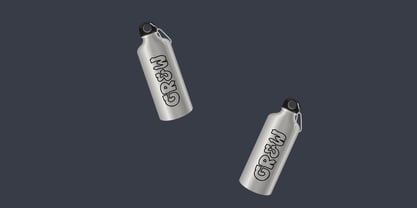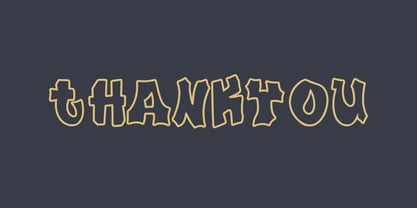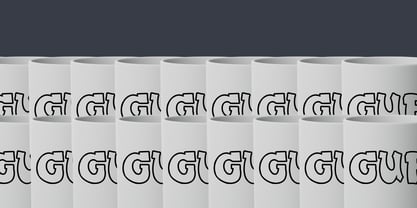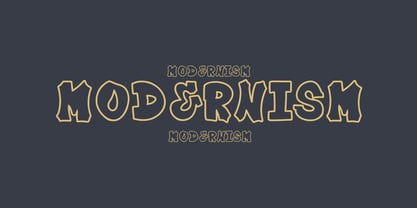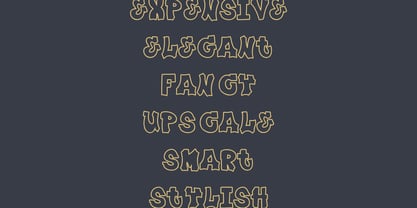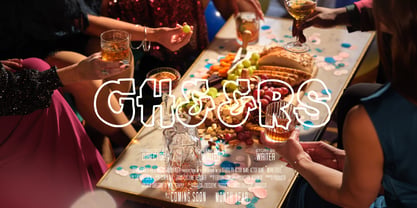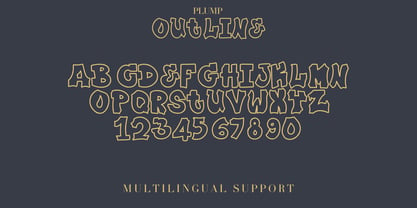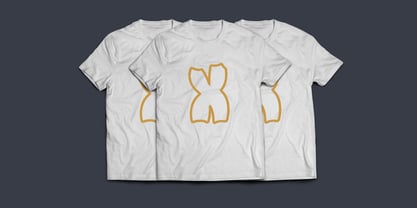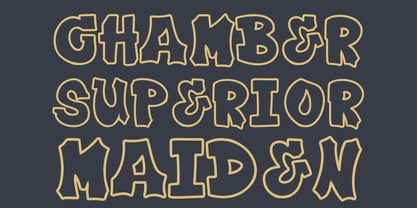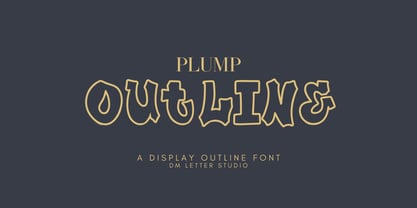
Plump Outline
by DM Studio
The Plump Outline Font Family was designed by Dimas Prasetyo and published by DM Studio. Plump Outline contains 1 styles.
Meet Plump Outline, the Display Font Plump Outline is a bold outline display font with a chunky, friendly shape that makes headlines pop without feeling heavy. It brings that “puffy” look while keeping the inside open, so your text stays clear and playful on any background. Because the outlines are clean and balanced, small labels stay readable and big titles look extra eye-catching. Use it for logos, stickers, packaging, kids designs, posters, social posts, and seasonal promos. As a result, your layouts look fun and high-impact with minimal effort. Why Plump Outline sells First, it installs fast and works smoothly in Canva, Photoshop, and Illustrator. Next, the open outline style prints cleanly and looks great for layering, shadows, and color fills. Then designs build faster because you can create depth using simple effects like stroke, offset, or drop shadow. Moreover, Plump Outline pairs perfectly with a solid chunky font, a clean sans, or a simple serif, so your typography stays balanced. Therefore, you can create cohesive collections and promo sets quickly. Fast layouts with the Plump Outline font Start with a short headline in Plump Outline and keep it bold. After that, add a solid fill behind it using a shape, a duplicate layer, or an offset effect. Because outlines love contrast, use strong background colors or simple gradients to make the letters shine. In addition, try stacking one to three words to create a strong badge-style composition. Finally, save palette pairs like black & cream, navy & white, cherry & ivory, or charcoal & neon to repeat across your product line. Creative uses and quick wins Sticker titles, label headers, and packaging fronts Kids party invites, classroom posters, and playful logos Social post headlines, reels covers, and YouTube thumbnails Seasonal promos, sale banners, and market signage What you get Uppercase, lowercase, numbers, punctuation Outline display style made for bold headlines Multilingual Latin support (where included in your build) Curves tuned for clean print and high-res exports Design tips for Plump Outline Keep phrases short so the outline stays strong. Also, increase tracking slightly when you use very large sizes for a cleaner look. For cutting projects, avoid tiny sizes and choose thicker outlines if your version includes options. Finally, export at 300 DPI for print and at 2× size for web so edges stay smooth everywhere.
Designers: Dimas Prasetyo
Publisher: DM Studio
Foundry: DM Studio
Design Owner: DM Studio
About DM Studio